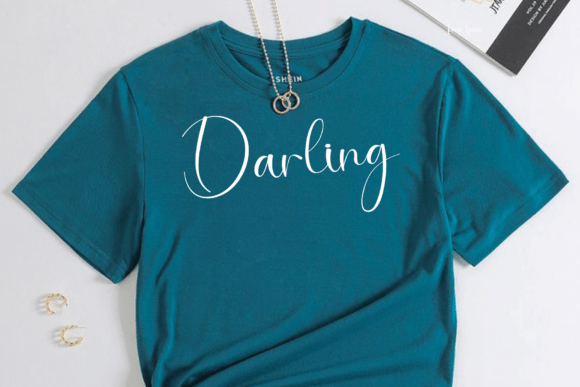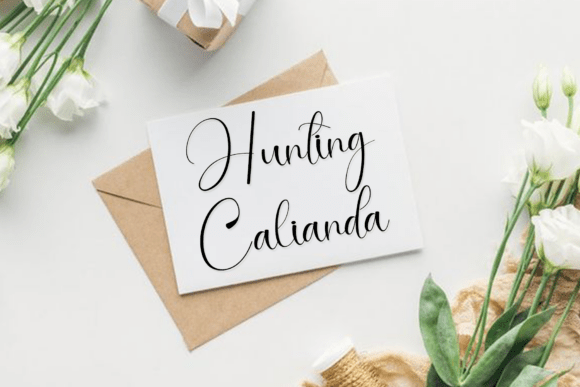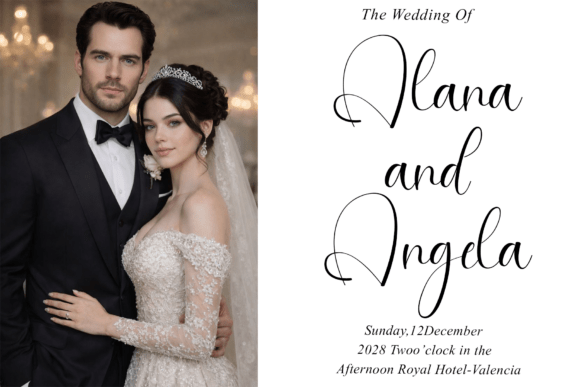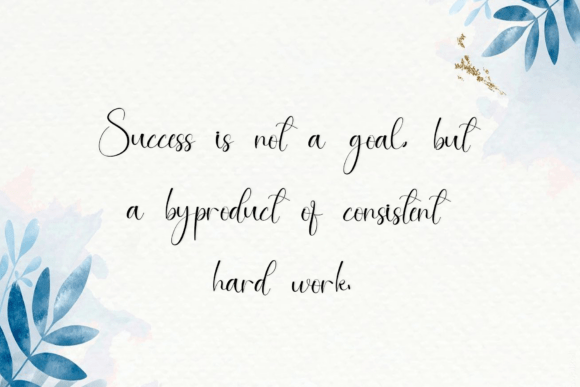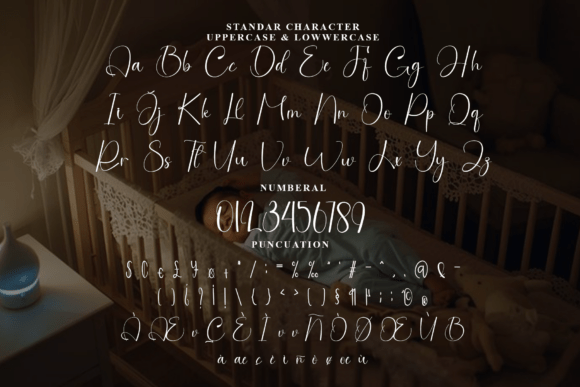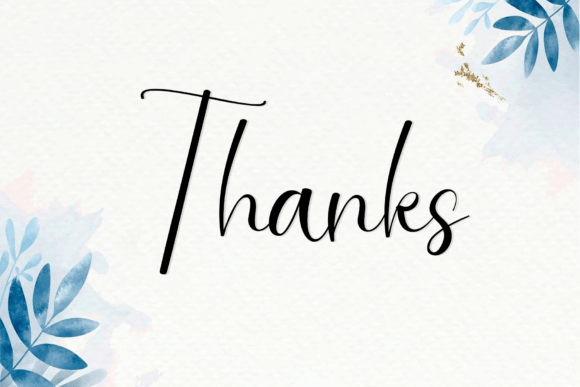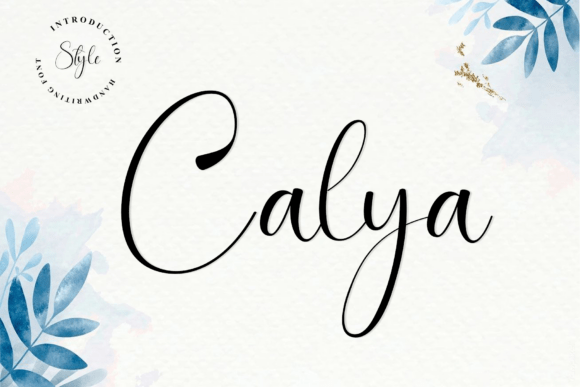
Discover the Elegance of Calya Font: A Modern Handwritten Marvel
In the realm of typography, few fonts manage to strike a balance between uniqueness, professionalism, and elegance. Calya Font, however, stands out as a remarkable exception. This modern handwritten font is meticulously designed to evoke a sense of clarity and crisp elegance, making it an excellent choice for designers and crafters looking to elevate their projects.
The Distinctive Features of Calya Font
Calya Font is characterized by its tall, thin strokes and a subtle, airy slant. This distinctive design imparts a refined aesthetic that feels refreshingly light and airy, much like a gentle mountain breeze. The clean and approachable style of Calya ensures that it can seamlessly integrate into various design projects, lending them a sophisticated and modern appeal.
Ideal Applications for Calya Font
Given its elegant and refined characteristics, Calya Font finds its application in a variety of creative and professional projects. Some of the ideal uses of Calya Font include:
- Travel Photography: The font’s ability to convey a sense of freshness and elegance makes it a perfect match for travel photography. It can add a sophisticated touch to photo albums, blogs, and portfolios, enhancing the visual appeal and narrative of travel experiences.
- Branding for Outdoor Gear: For brands that specialize in outdoor gear and equipment, Calya Font offers a typographic solution that resonates with the ruggedness and beauty of the outdoors. Its clean lines and airy feel can help in creating a brand identity that feels both adventurous and refined.
- Sophisticated Web Design: In the digital realm, Calya Font can be a valuable asset for web designers aiming to create sleek and modern websites. Its readability and aesthetic appeal make it suitable for headings, titles, and even body text, contributing to a cohesive and engaging user experience.
Why Designers and Crafters Love Calya Font
Calya Font has quickly become a favorite among designers and crafters for several reasons:
- Versatility: Calya’s versatile design allows it to be used across a wide range of projects, from digital media to print materials, without losing its impact or elegance.
- Legibility: Despite its elegant and thin strokes, Calya maintains a high level of legibility, making it suitable for both headings and body text.
- Uniqueness: In a sea of generic fonts, Calya stands out with its unique blend of modernity and elegance, offering designers a way to distinguish their work.
Tips for Using Calya Font Effectively
To make the most out of Calya Font, consider the following tips:
- Pair it with Contrasting Fonts: When using Calya for headings, pair it with a more robust, sans-serif font for body text to create visual contrast and hierarchy.
- Experiment with Colors: Calya’s elegance shines through in neutral colors, but feel free to experiment with subtle color palettes that complement its airy and refined aesthetic.
- Adjust Line Spacing: Given its thin strokes, adjusting the line spacing can enhance readability, especially in longer texts.
Calya Font represents a unique and professional addition to the world of modern handwritten fonts. Its blend of elegance, clarity, and versatility makes it an invaluable tool for designers and crafters seeking to create visually stunning and impactful projects. Whether you’re working on travel photography, outdoor gear branding, or sophisticated web design, Calya Font offers the perfect combination of form and function to elevate your creative endeavors.